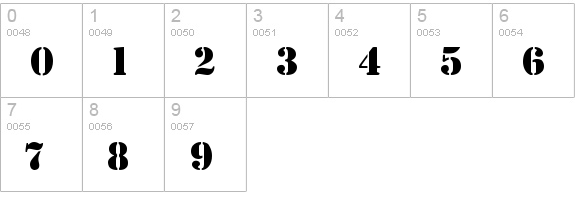
Steamer Regular Font Details
Steamer Regular is the standard, neutral variant in the Steamer typeface family \xE2\x80\x94 well suited to general body text, paragraphs, and standard typographic work.
Steamer Regular font is a classic and versatile typeface that exudes elegance and sophistication. Its clean and balanced letterforms make it perfect for a wide range of design applications, from branding and packaging to editorial layouts and web design. This font features a timeless aesthetic with a touch of modernity, making it suitable for both traditional and contemporary design projects. Its rounded and slightly condensed letterforms provide excellent legibility, ensuring that your message is conveyed with clarity and style. Whether you're designing a logo, creating a poster, or crafting a website, Steamer Regular font will add a professional and refined touch to your work. Its versatility allows it to adapt seamlessly to various design styles and themes, making it a reliable choice for designers of all levels of expertise. But the best part? Steamer Regular font is available for free download at FontsMarket.com. That's right - you can enhance your designs with this premium font without having to spend a dime. Simply head over to FontsMarket.com, locate the Steamer Regular font, and start elevating your design projects to new heights. So why wait? Take advantage of this amazing opportunity and download Steamer Regular font today. With its timeless appeal, exceptional legibility, and the fact that it's freely available, this font will undoubtedly become a valuable asset in your design arsenal. Don't miss out on this chance to elevate your designs and leave a lasting impression on your audience.